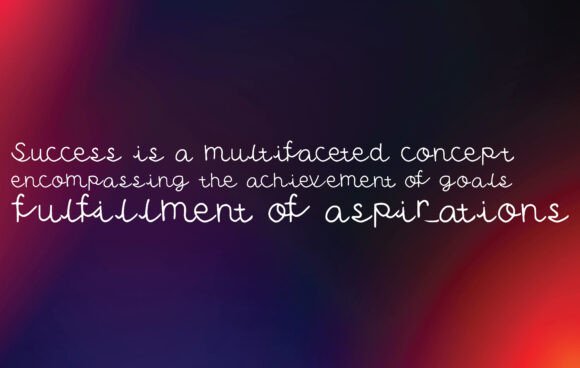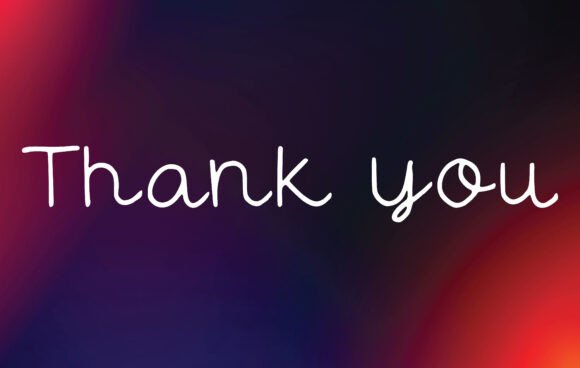
Introducing Grady Font: Elevate Your Creative Projects with Elegance
Are you on the hunt for a font that can add a touch of sophistication and beauty to your designs? Look no further than Grady Font, a lovely and beautiful handwritten font that has the potential to take your creative ideas to the highest level. In this article, we’ll dive into the world of Grady Font, exploring its features, benefits, and uses, and why it’s the best choice for creating eye-catching logos, branding, and quotes.
What is Grady Font?
Grady Font is a stunning handwritten font that boasts a unique and elegant style. Its flowing curves and refined lines make it perfect for a wide range of design applications, from logos and branding to quotes and social media graphics. With Grady Font, you can add a personal touch to your designs, making them stand out from the crowd and leave a lasting impression on your audience.
Features of Grady Font
So, what makes Grady Font so special? Here are just a few of its key features:
- Handwritten style: Grady Font has a beautiful, handwritten style that adds a touch of warmth and personality to your designs.
- Elegant and refined: The font’s flowing curves and refined lines make it perfect for creating sophisticated and elegant designs.
- Versatile: Grady Font can be used for a wide range of design applications, from logos and branding to quotes and social media graphics.
- Easy to read: Despite its elegant style, Grady Font is easy to read, making it perfect for use in body text and captions.
Benefits of Using Grady Font
So, why should you choose Grady Font for your design projects? Here are just a few of the benefits of using this beautiful font:
- Adds a personal touch: Grady Font’s handwritten style adds a personal touch to your designs, making them more relatable and engaging.
- Creates a lasting impression: The font’s elegant and refined style makes it perfect for creating eye-catching logos, branding, and quotes that leave a lasting impression on your audience.
- Boosts creativity: With Grady Font, you can take your creative ideas to the highest level, creating designs that are both beautiful and effective.
- Perfect for designers and crafters: Whether you’re a designer or crafter, Grady Font is the perfect choice for anyone looking to add a touch of elegance and sophistication to their designs.
Uses of Grady Font
So, what can you use Grady Font for? The possibilities are endless! Here are just a few ideas to get you started:
- Logos and branding: Use Grady Font to create eye-catching logos and branding that sets your business apart from the competition.
- Quotes and social media graphics: Add a touch of elegance and sophistication to your quotes and social media graphics with Grady Font.
- Invitations and stationery: Use Grady Font to create beautiful invitations and stationery that makes a lasting impression.
- Packaging and product design: Add a personal touch to your packaging and product design with Grady Font.
In conclusion, Grady Font is a beautiful and elegant handwritten font that has the potential to take your creative ideas to the highest level. With its flowing curves and refined lines, it’s perfect for creating eye-catching logos, branding, and quotes that leave a lasting impression on your audience. Whether you’re a designer or crafter, Grady Font is the perfect choice for anyone looking to add a touch of sophistication and elegance to their designs. So why wait? Download Grady Font today and start elevating your creative projects with elegance!